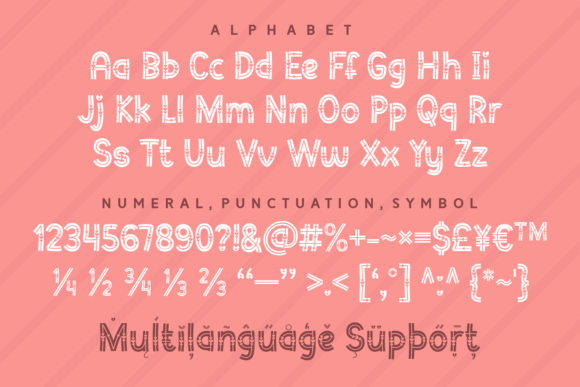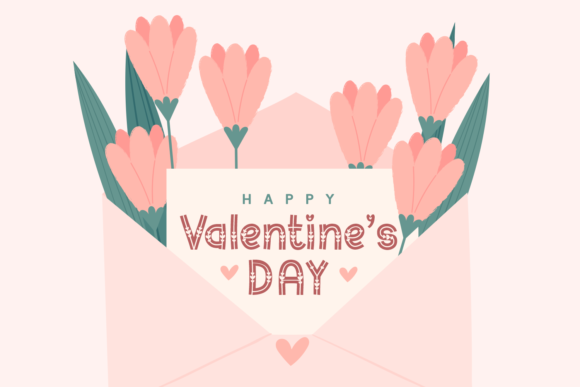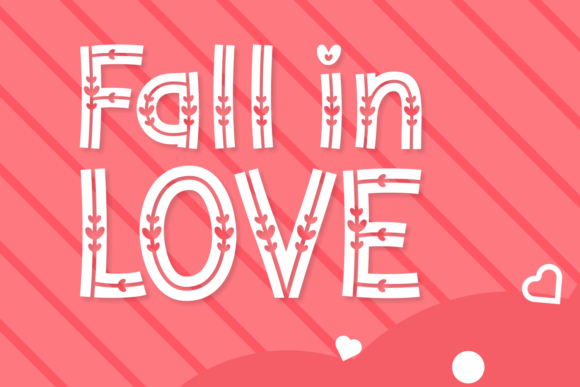
Little Lover Font – Free Download
Introduction to Little Lover Font
Little Lover is a cool and romantic decorative font.
Warm, romantic and jolly, this font will turn each of your project ideas into real works of art Have fun with this beautiful font and explore its endless variations.
Key Features of Little Lover Font
Why Choose Little Lover Font?
Little Lover Font offers exceptional quality and versatility, making it a valuable addition to your design toolkit. Whether you’re creating for personal projects or commercial use, Little Lover Font delivers professional results.